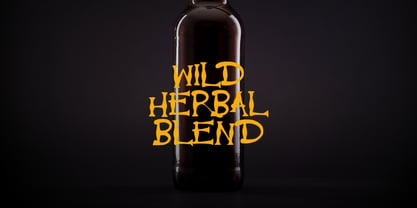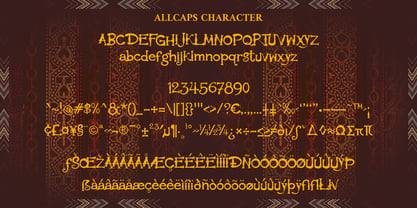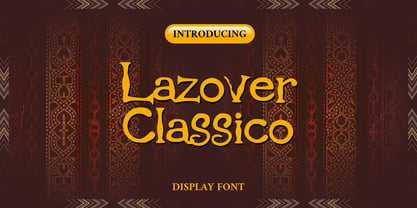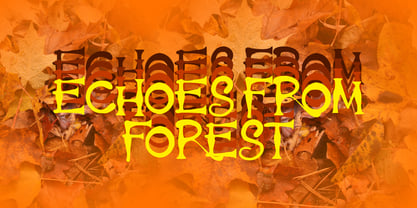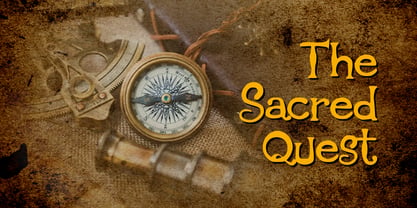
Lazover Classico
by Mei Suseno
The Lazover Classico Font Family was designed by Wahyu Eka Prasetya, Mei Suseno and published by Mei Suseno. Lazover Classico contains 1 styles. More about this family
Lazover Classico
This font features a mystical and ornamental fantasy style inspired by medieval calligraphy and ancient folklore aesthetics. The characters are designed with elegant curves, sharp decorative edges, and artistic flourishes that create a magical and dramatic appearance. Its warm golden tone combined with intricate details makes it ideal for fantasy-themed designs, movie titles, game interfaces, book covers, posters, branding, and cultural artwork. The font delivers a strong vintage atmosphere while maintaining readability, giving every design a luxurious and enchanted visual identity.
Designers: Wahyu Eka Prasetya, Mei Suseno
Foundry: Mei Suseno